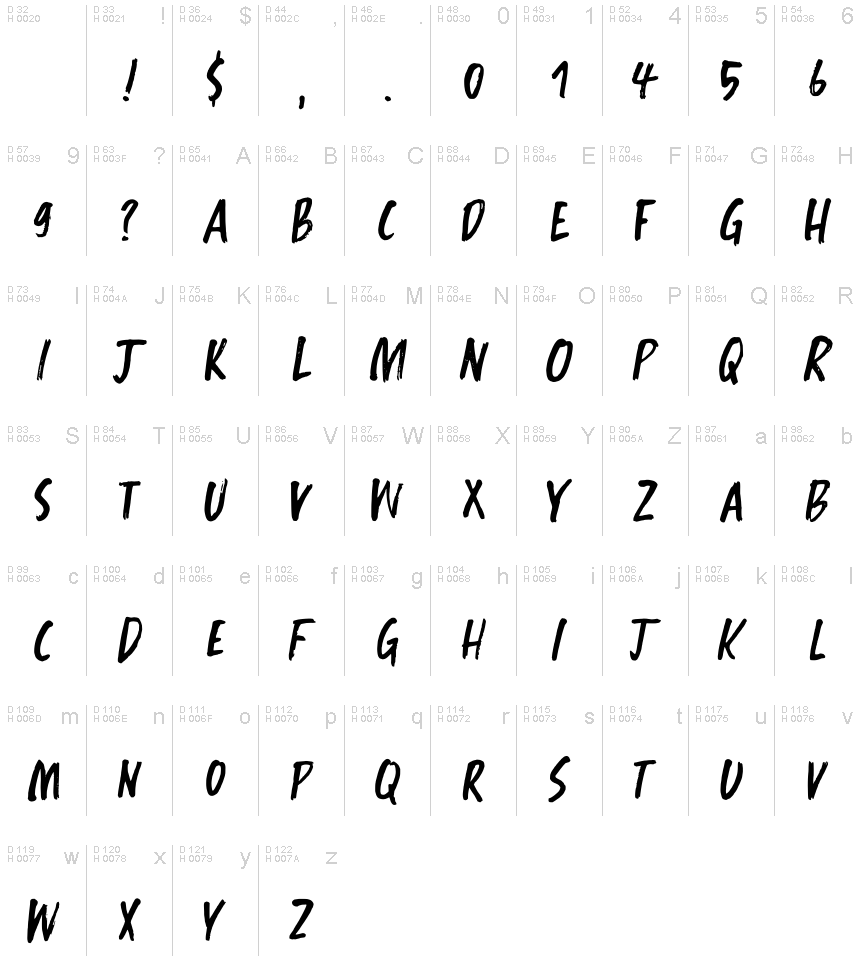
Benjiro DEMO Regular
Benjiro font, designed by David Kerkhoff for Kitchen Table Type, captivates with its expressive brush style that exudes a handcrafted charm. The condensed nature of the font accentuates its sleek lines, allowing for impactful lettering that remains stylish without sacrificing legibility. Each character boasts a certain fluidity, embodying an artistic flair that can enliven any design project.
Visually striking yet versatile, Benjiro is perfect for branding materials, trendy posters, and dynamic website headings. Its unique aesthetic lends itself well to both casual and sophisticated contexts, making it an ideal choice for those seeking to convey creativity and individuality in their visual communications. Whether used in titles or body text, this font adds a vibrant energy that draws attention effortlessly.